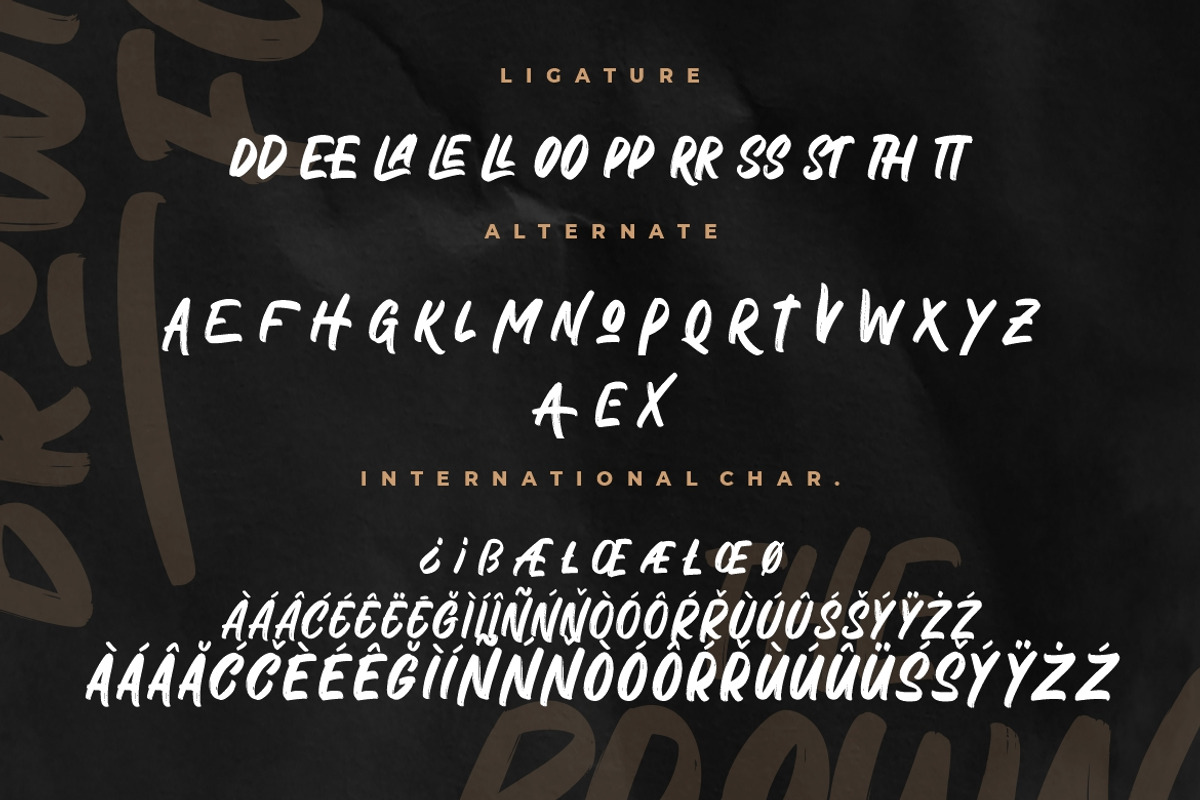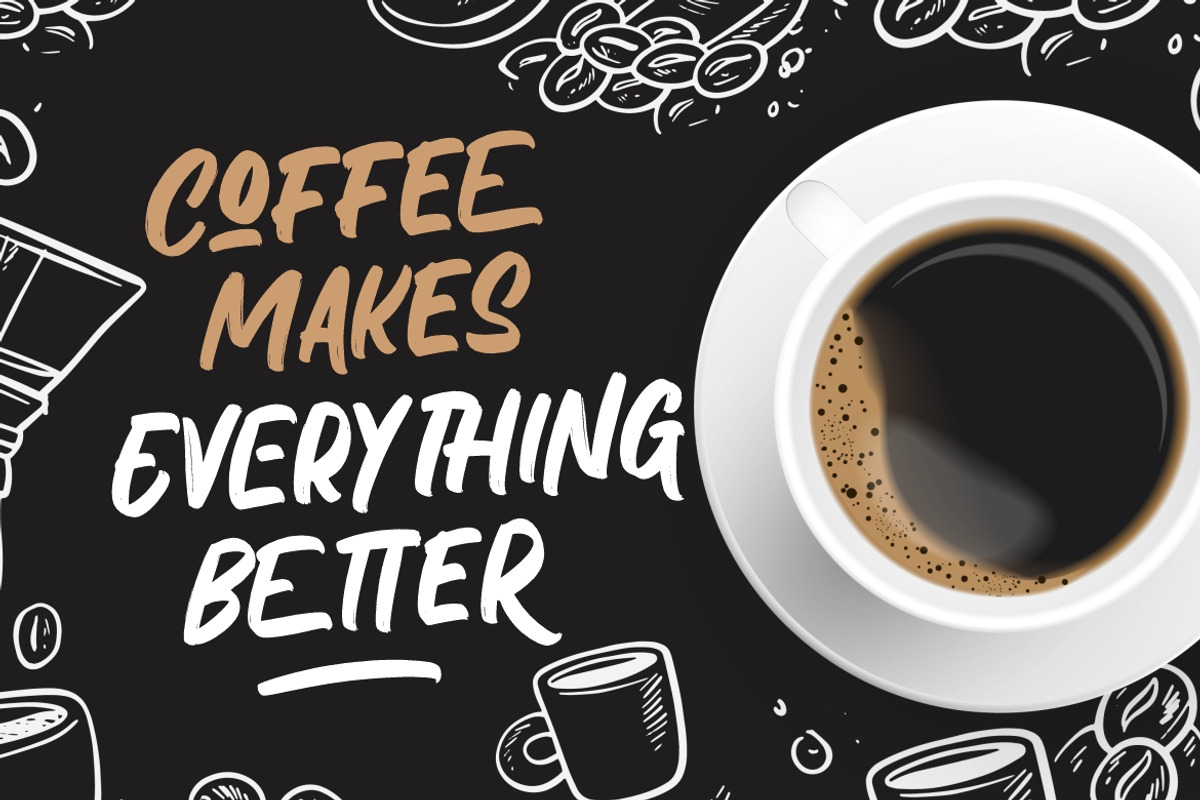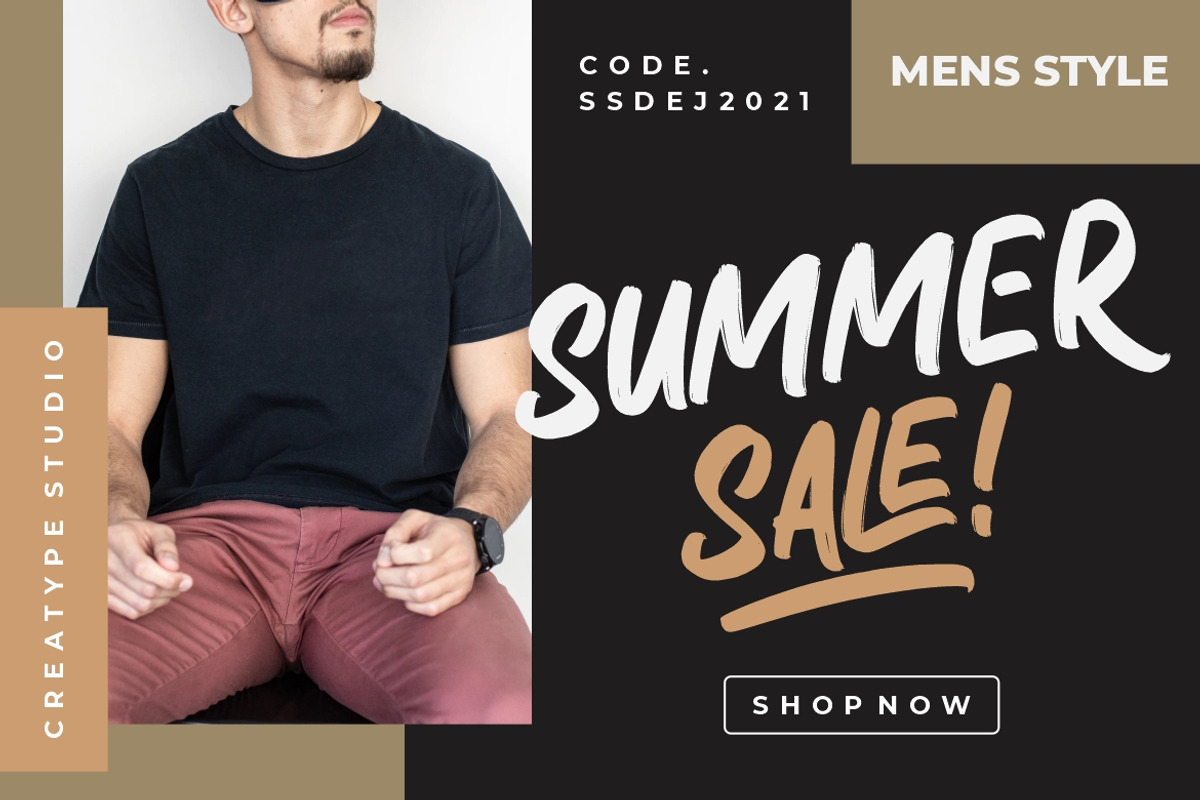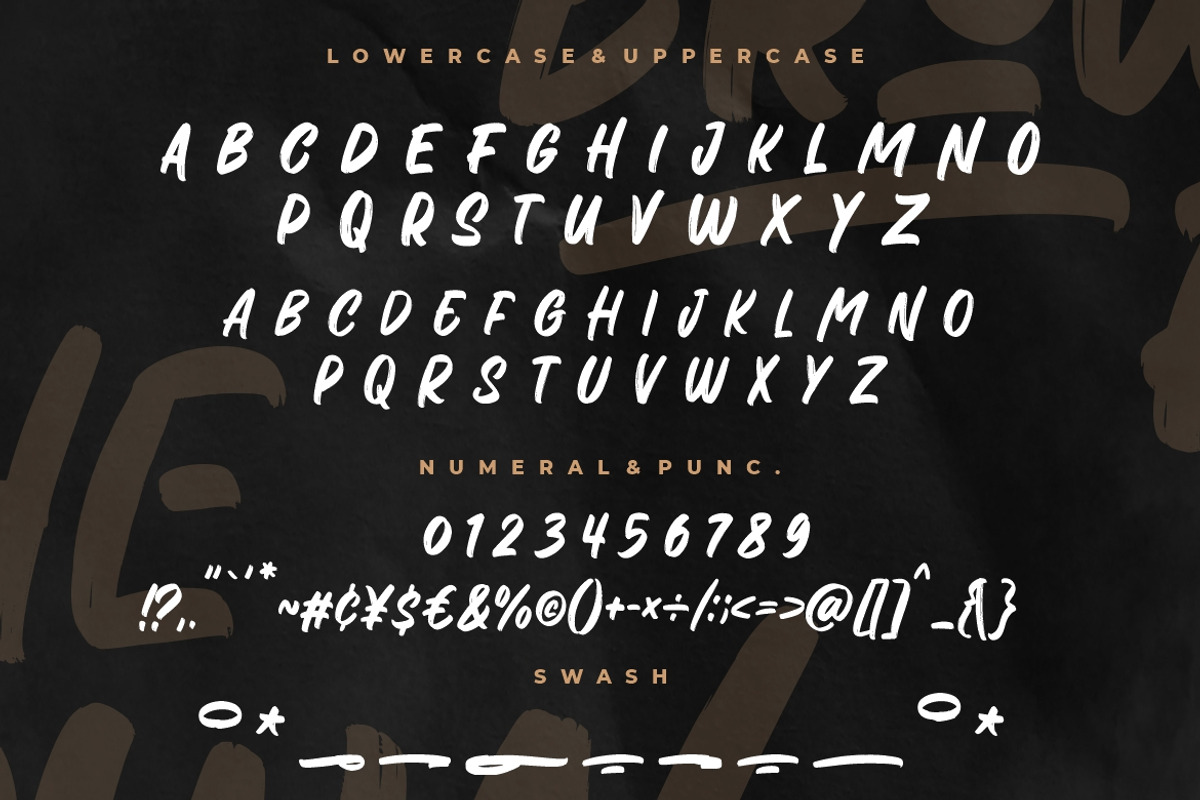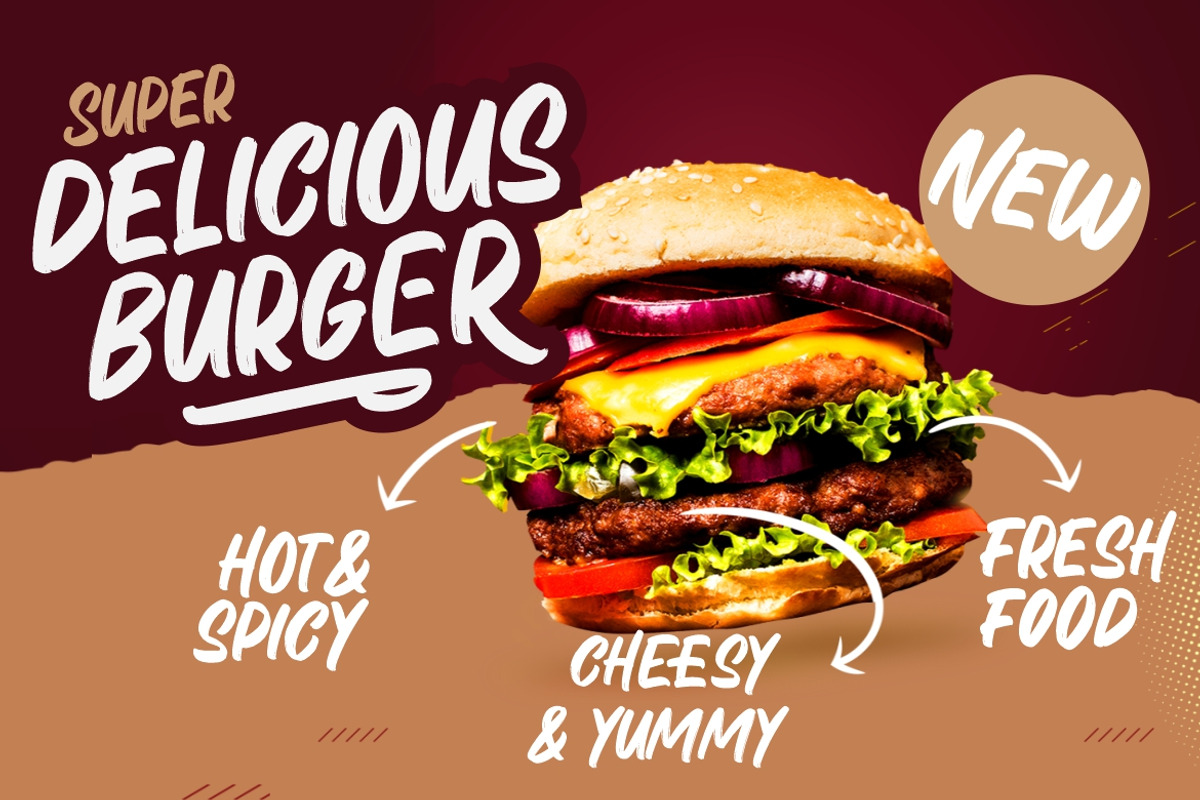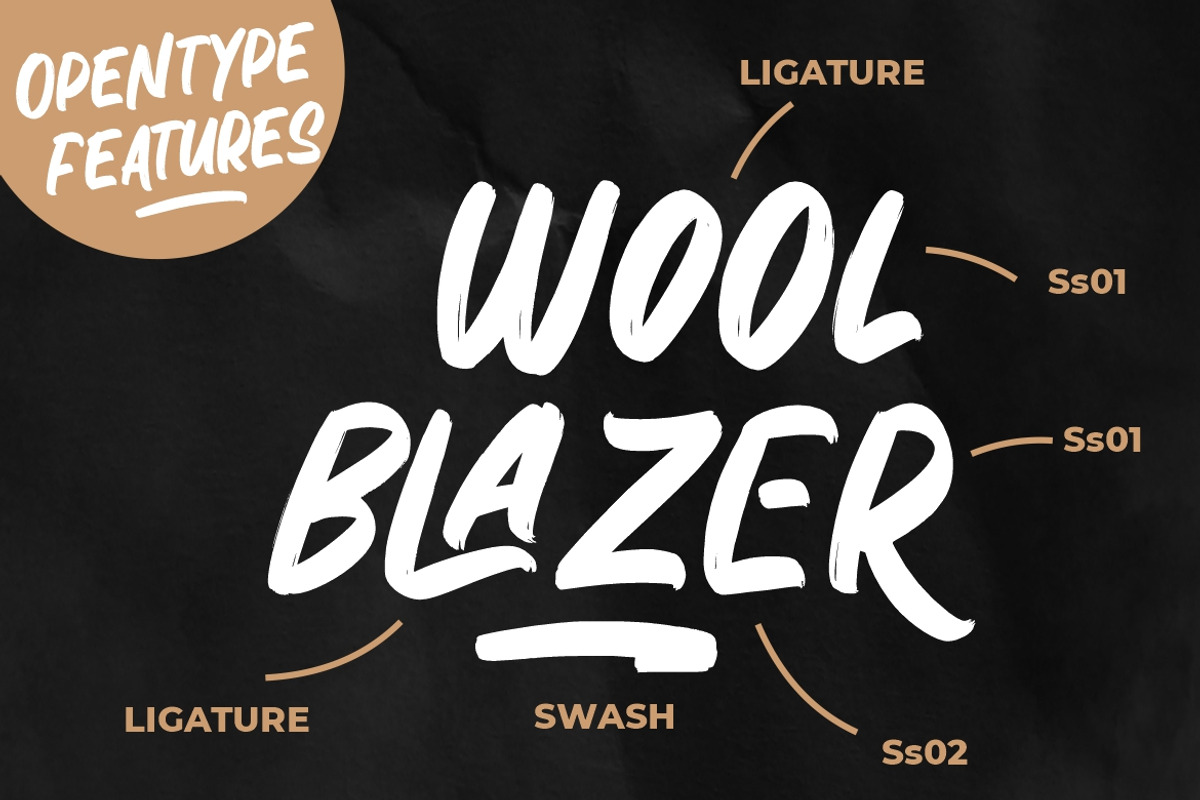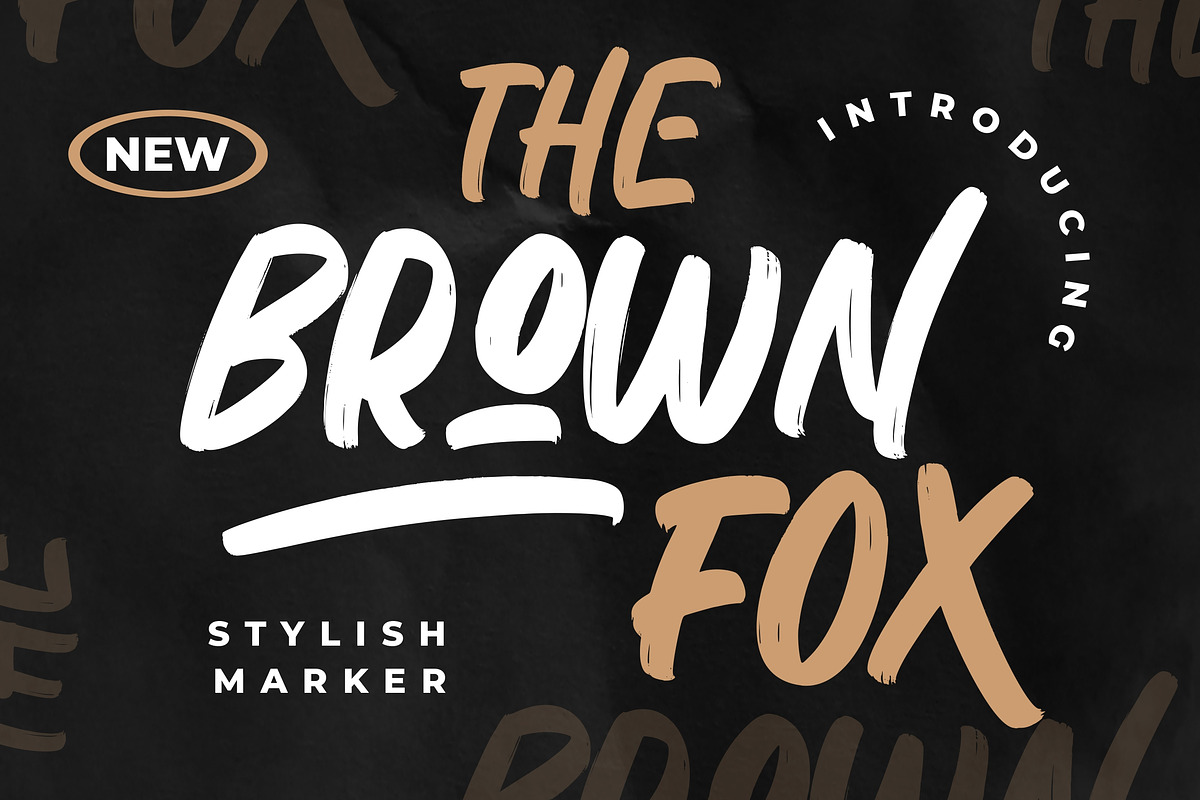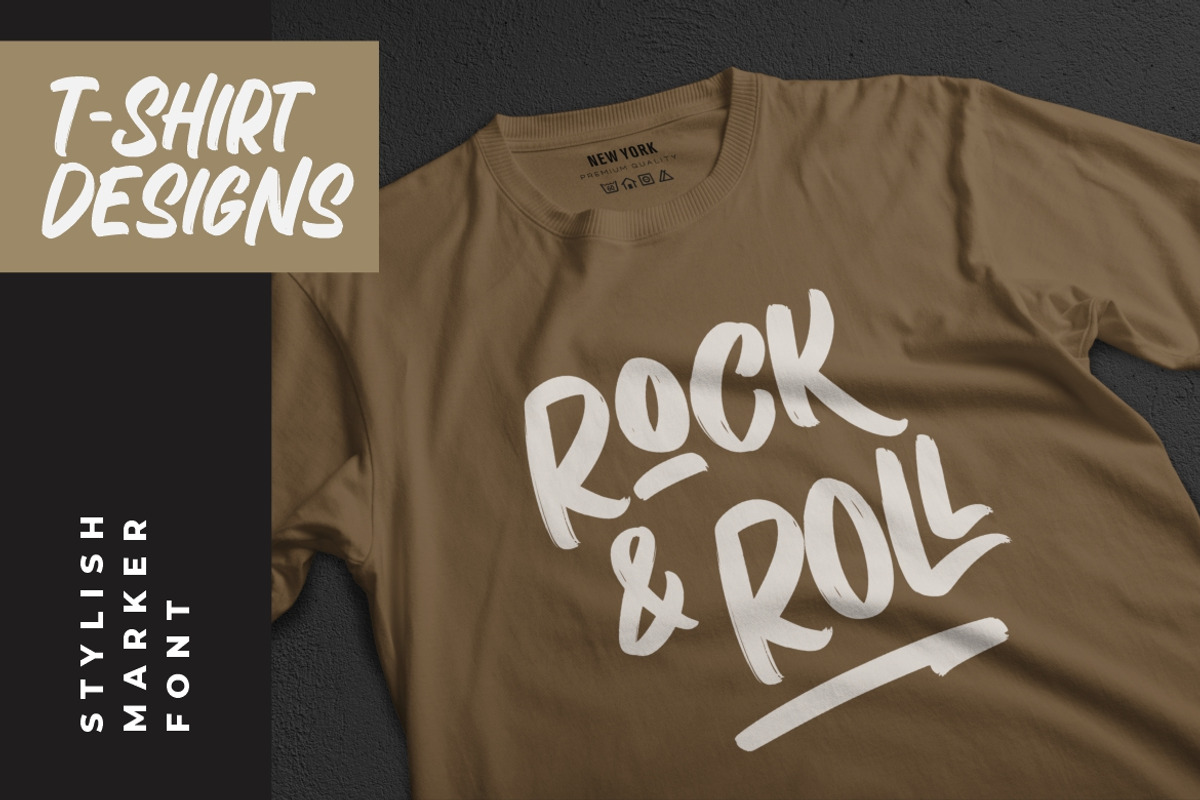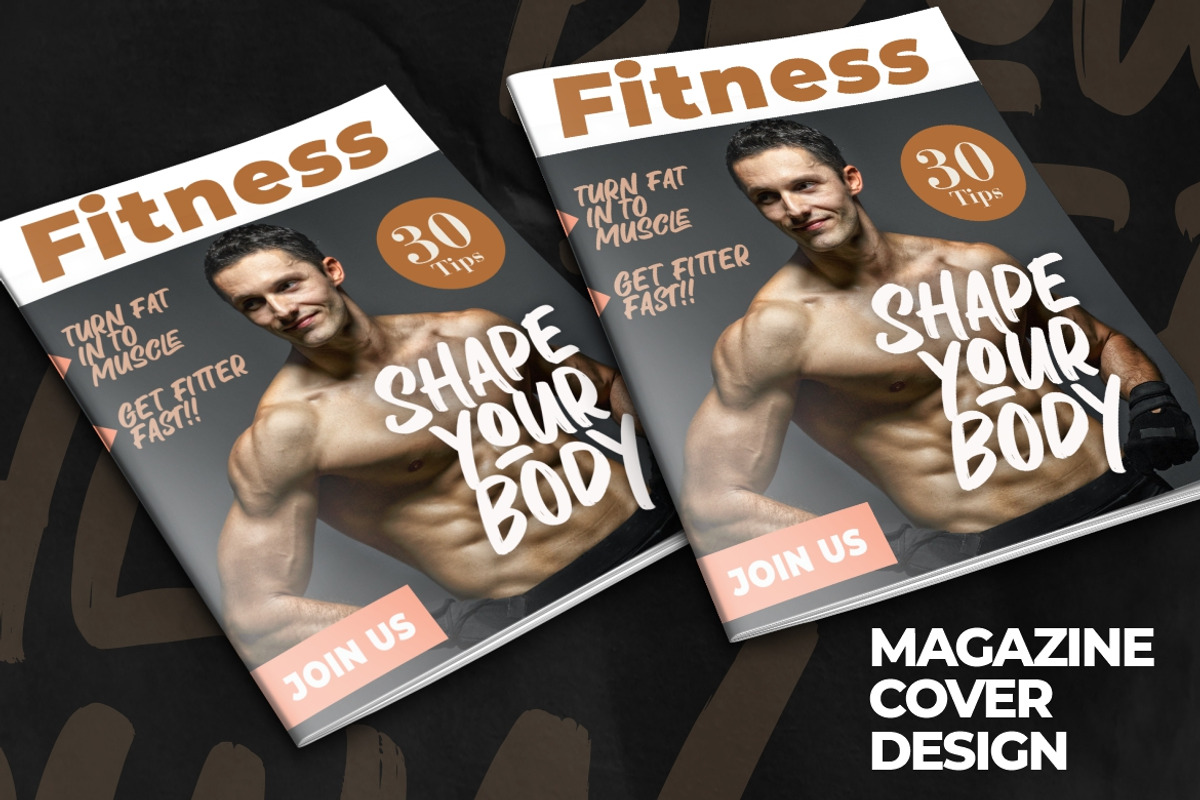
The Brown Fox Stylish Marker
The Brown Fox is a stylish marker font with a brush-style that perfect for your latest project.
The Brown Fox is perfect for branding projects, logo, wedding designs, social media posts, advertisements, product packaging, product designs, label, photography, watermark, invitation, stationery and any projects that need handwriting taste.
- Ligature & Alternate